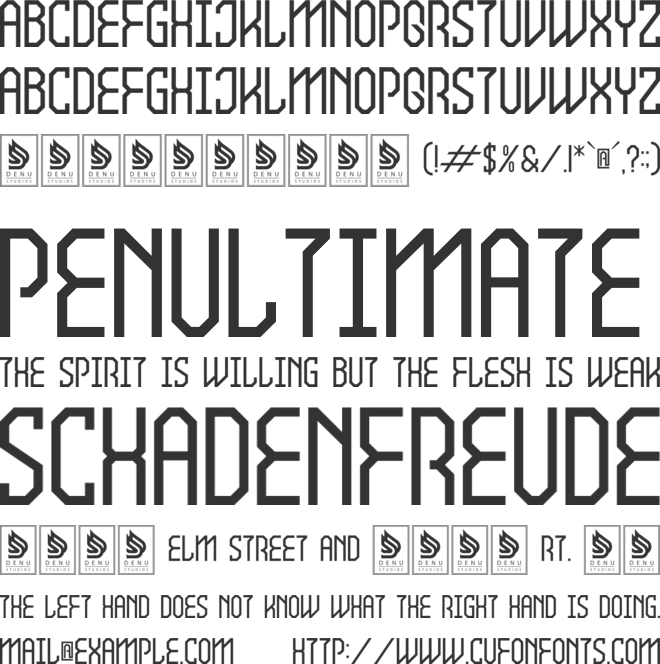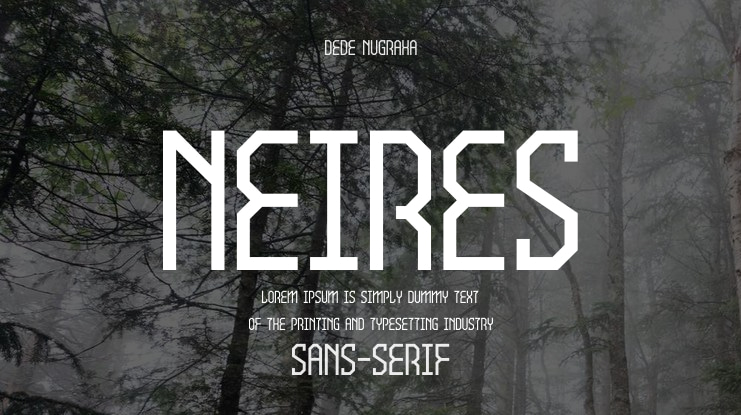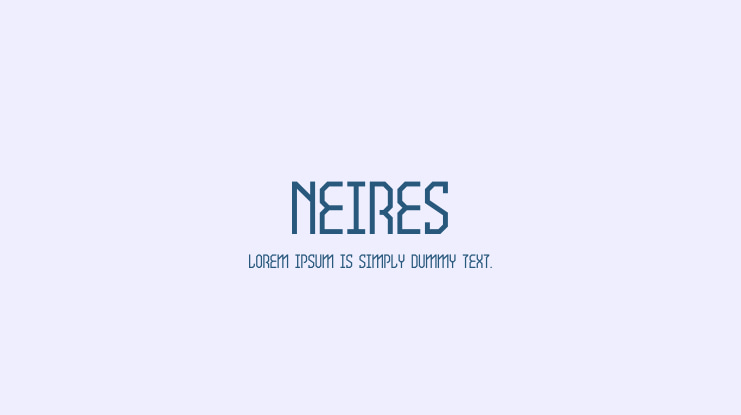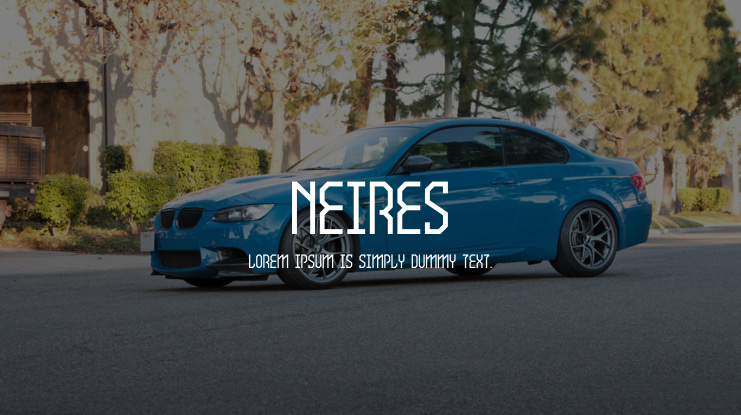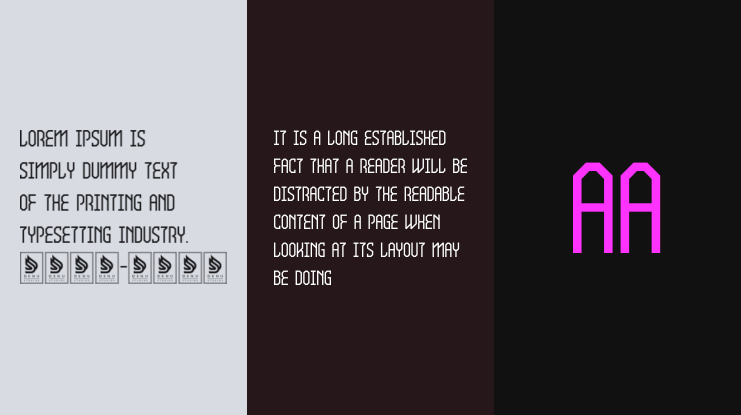
Neires Font
Neires | Cyber Future Font is suitable for various projects such as logos, branding, homeware designs, product packaging, mugs, quotes, posters, shopping bags, t-shirts, book covers, name cards, invitation cards, greeting cards, labels, photography, watermarks, special events, and any other projects requiring a Cyber Future Font touch.